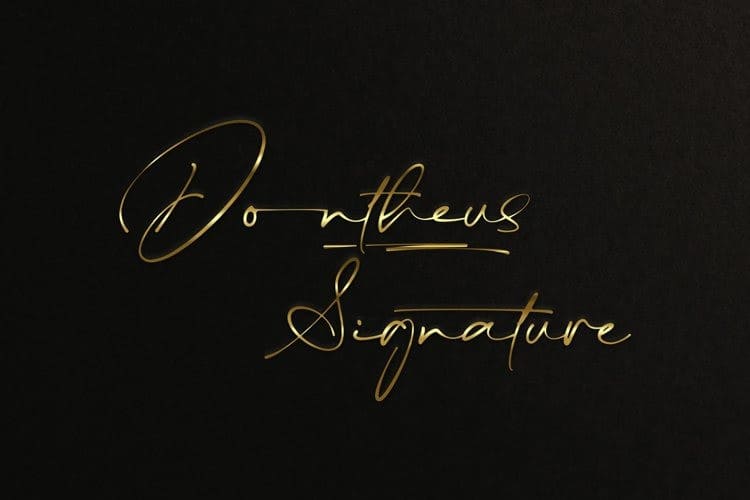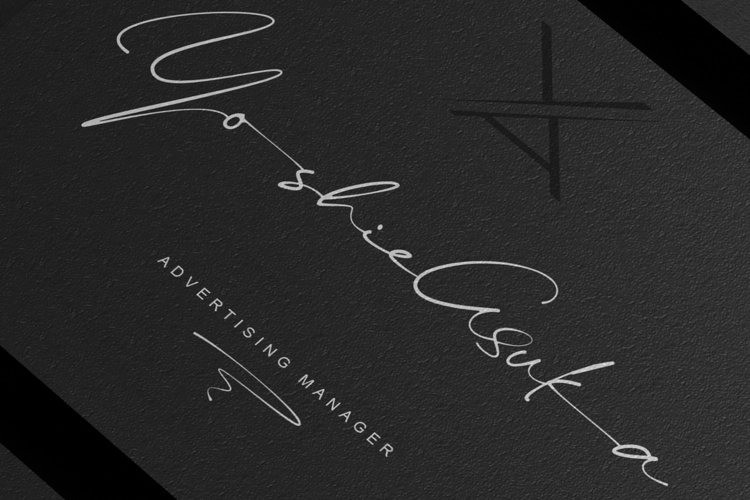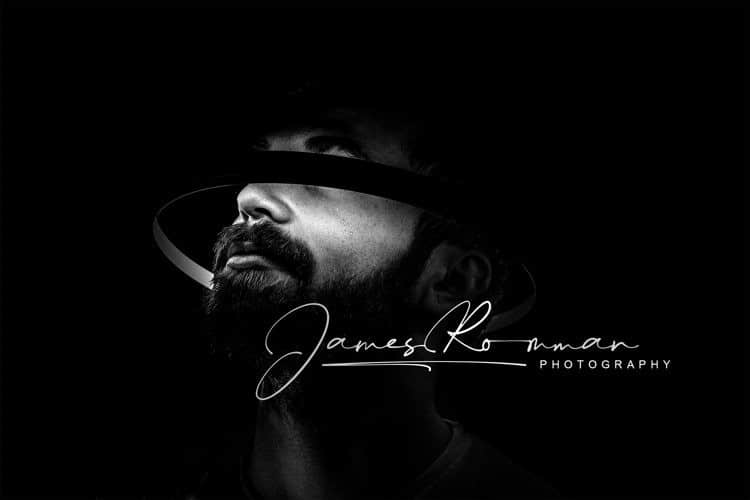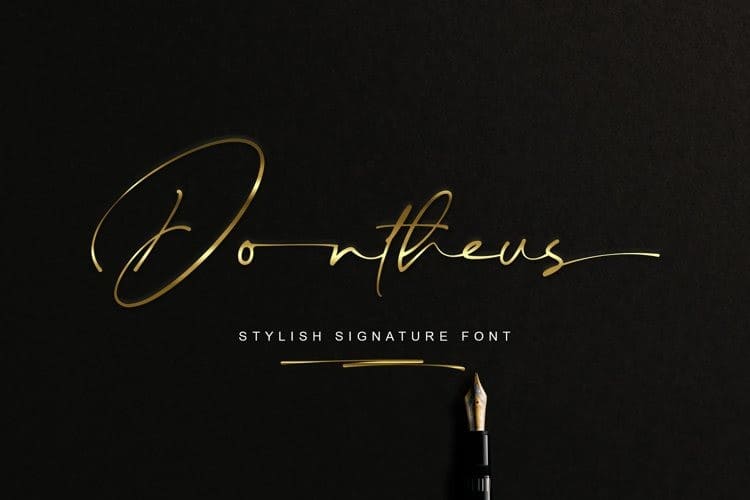
Dontheus Handwritten Font is a beautiful and elegant handwritten script font. Perfect for making elegant stylish statements – or adding a touch of class to your designs. Dontheus Font is perfect for many different project such as logos & branding, invitation, stationery, wedding designs, social media posts, advertisements, product packaging, product designs, label, photography, watermark, special events or anything.